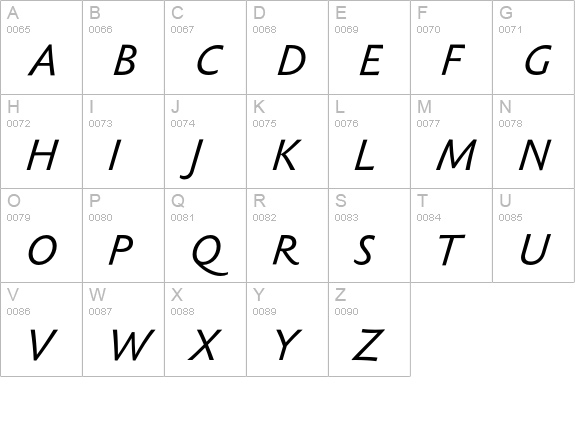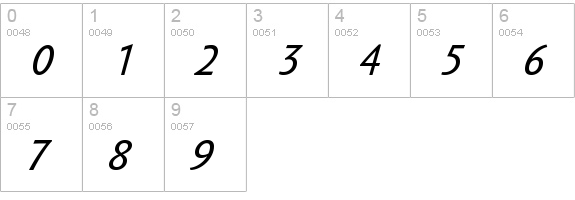
Sebastian Text Pro Italic is a distinctive, italic variant in the Sebastian typeface family \xE2\x80\x94 well suited to design and typography projects.
Introducing Sebastian Text Pro Italic font, a timeless and elegant typeface that exudes sophistication and refinement. With its graceful curves and slanted angles, this font adds a touch of elegance to any design project. Designed with versatility in mind, Sebastian Text Pro Italic is perfect for a wide range of applications, from editorial layouts to branding materials. Its italic style adds a sense of dynamism and flair, making it an excellent choice for conveying both a professional and artistic vibe. The exquisite details of Sebastian Text Pro Italic font truly make it stand out. The delicate strokes and subtle variations in line thickness create a sense of craftsmanship, while the slightly condensed letterforms ensure legibility even in small sizes. Sebastian Text Pro Italic font is freely available to download at FontsMarket.com, allowing designers and creatives to add this exceptional typeface to their font collection without any cost. Its accessibility and availability make it a valuable resource for both personal and commercial projects. Whether you are designing a magazine spread, a wedding invitation, or a website, Sebastian Text Pro Italic font will elevate your design to new heights. Its timeless beauty and versatility make it a must-have for any creative endeavor. Download Sebastian Text Pro Italic font today from FontsMarket.com and unlock the potential for stunning and impactful designs.